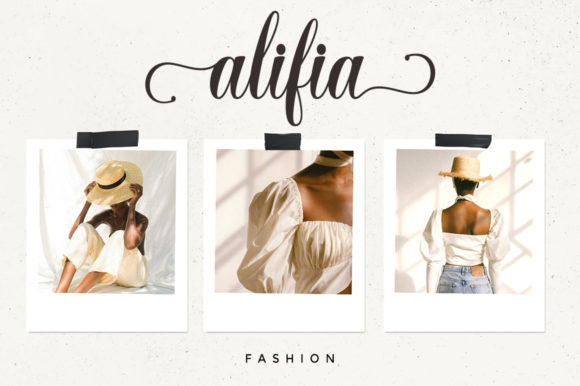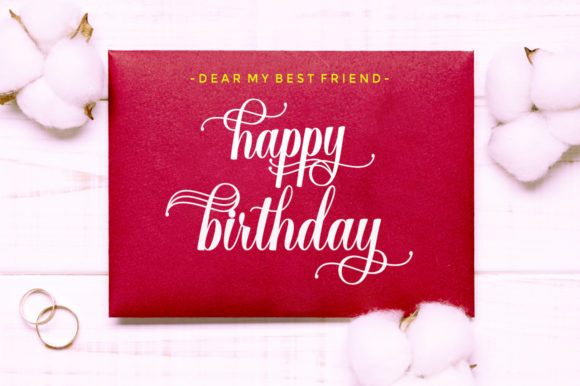
Baby Child Font
db-ku.com - Script & Handwritten -- Baby Child is a delicate, elegant and flowing handwritten font. It has beautiful and well balanced characters and as a result, it matches a wide pool of designs. This font is PUA encoded which means you can access all of the glyphs and swashes with ease! It features a varying baseline, smooth lines, gorgeous glyphs and stunning alternates. Add it to your most creative ideas and notice how it makes them come alive!